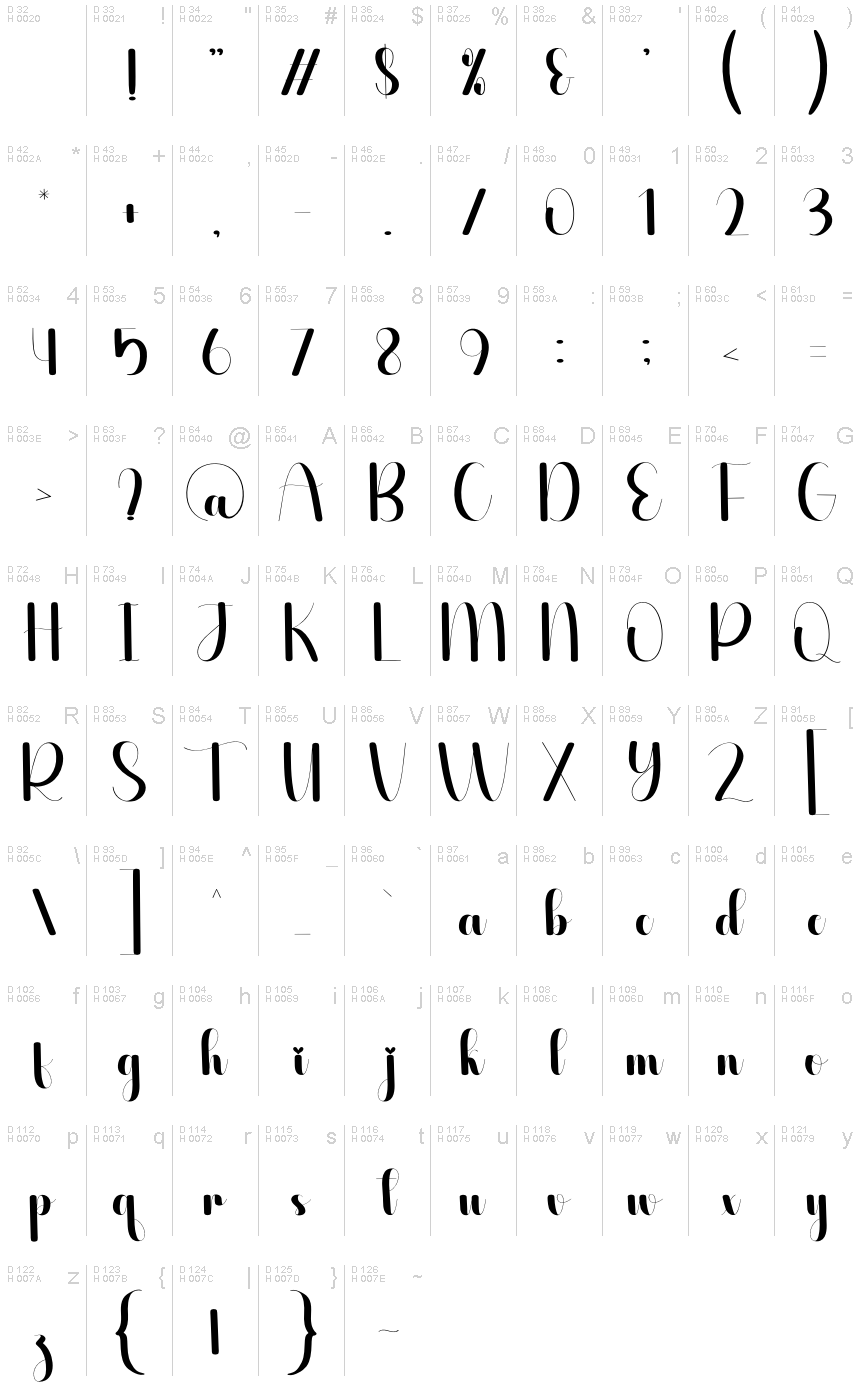
Outshine
Outshine font, designed by Scratchones, is a stunning calligraphic typeface that captivates with its graceful curves and flowing lines. This font radiates elegance, making it an exceptional choice for projects that demand a touch of sophistication. Its light yet expressive nature brings a sense of airiness, while the sweeping strokes provide ample visual interest.
The unique variations in its form create an inviting rhythm, perfect for enhancing invitations, branding materials, or any design that aims to convey warmth and creativity. Whether used in striking headlines or delicate accents, Outshine effortlessly elevates each piece it adorns. This versatile font shines in both printed and digital formats, making it an indispensable asset across diverse design applications.